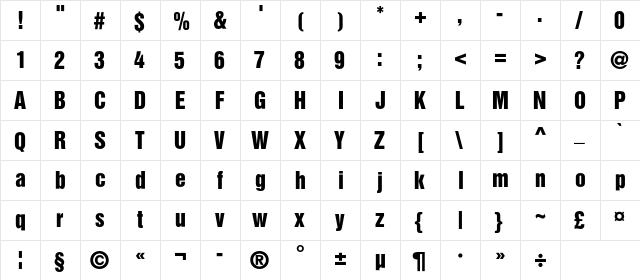
BastionKontrastAlt-Regular Regular
Design Context for BastionKontrastAlt-Regular Typeface
BastionKontrastAlt-Regular is a composed and adaptable typeface that performs quietly and consistently across a wide range of design contexts.